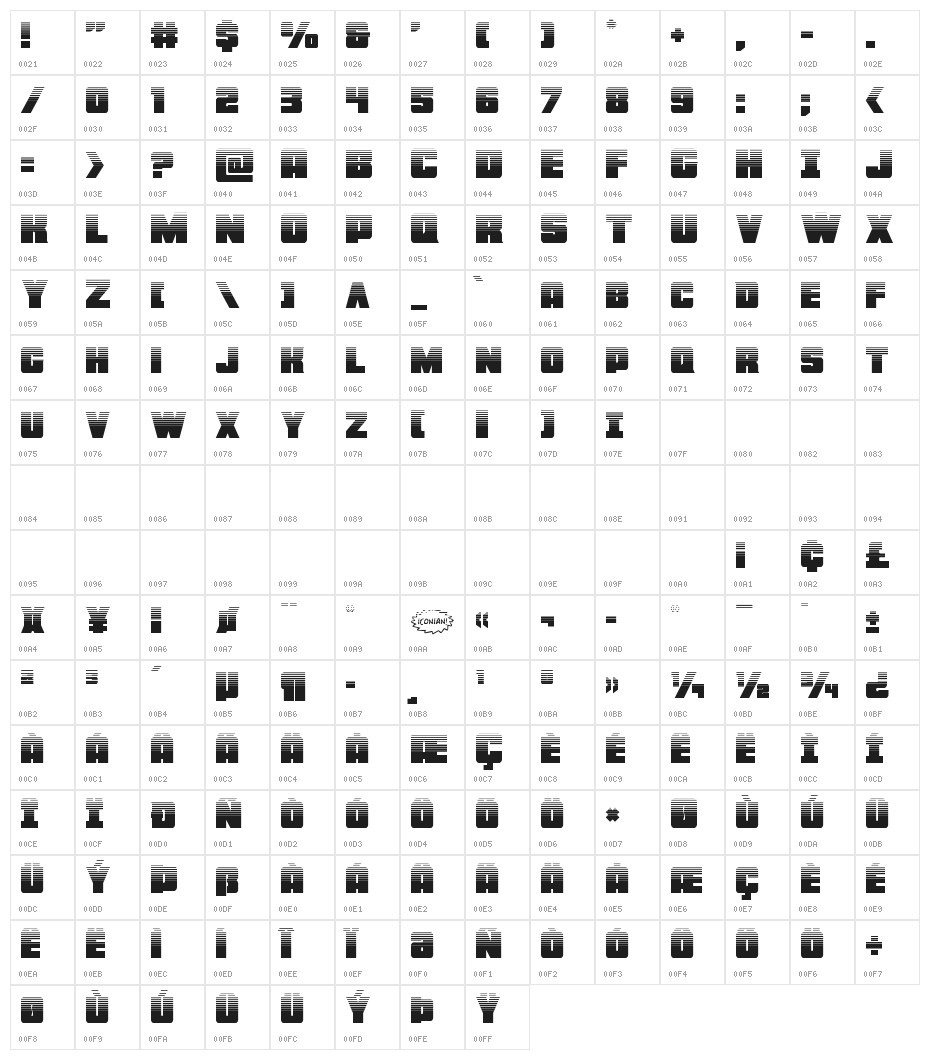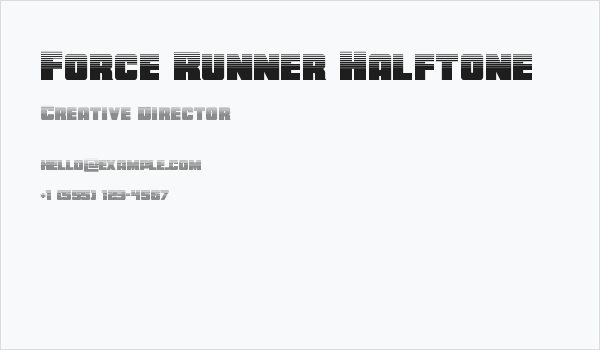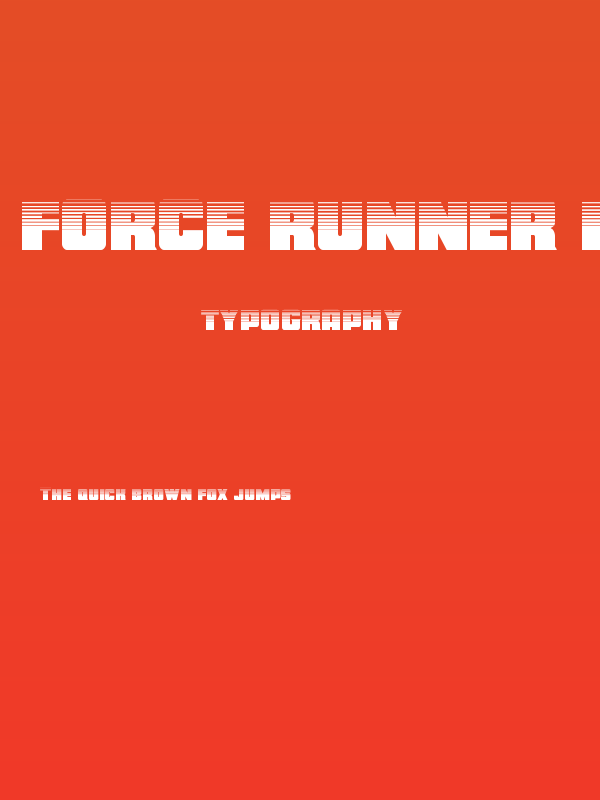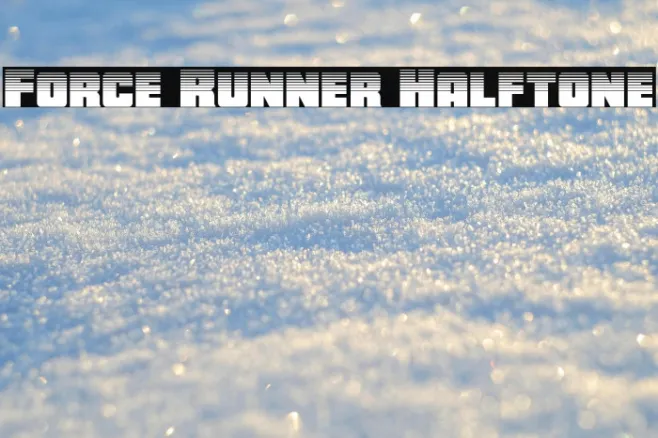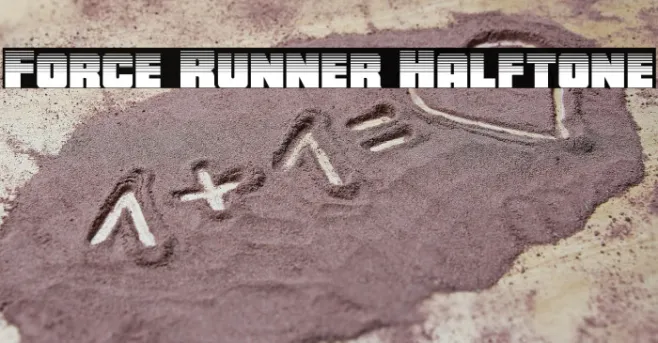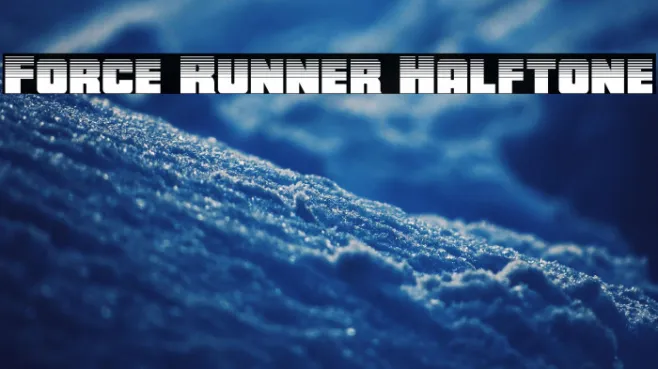
Force Runner Halftone Font
Force Runner Halftone Description
This font features a bold, futuristic design with a halftone effect that gives it a dynamic and energetic appearance. The uppercase and lowercase letters are constructed with solid, block-like forms, enhanced by horizontal lines that create a sense of movement and speed. The numbers and special characters maintain this consistent style, making the font suitable for attention-grabbing headlines and modern design projects. Its unique aesthetic is reminiscent of digital displays and retro-futuristic themes, making it ideal for projects that require a bold and impactful visual statement.
| Overall Style | Futuristic, Retro |
| Proposed Projects | Ideal for sci-fi themed posters, video game titles, tech branding, and futuristic event flyers. |